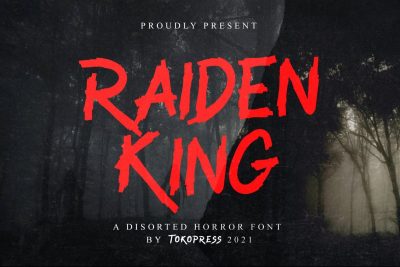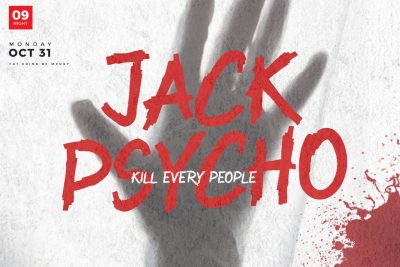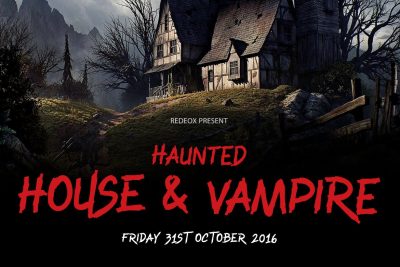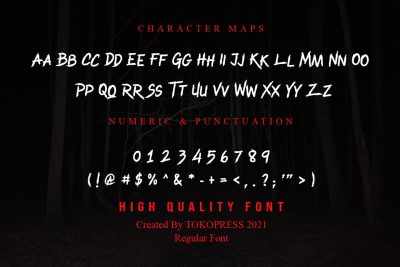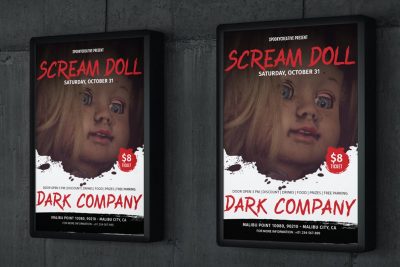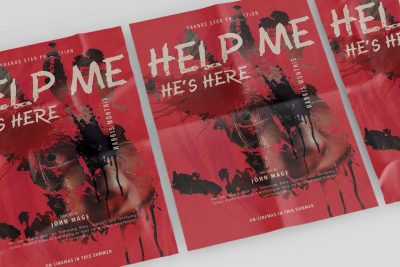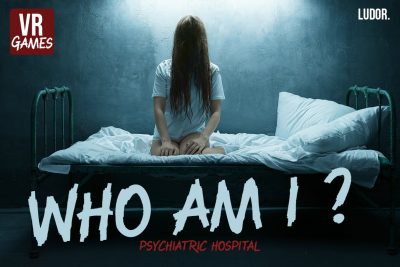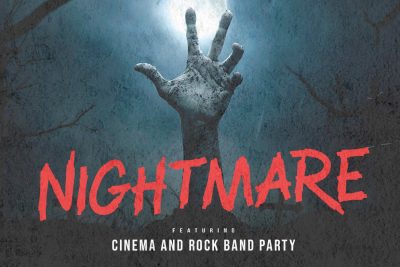
Scary Font Raiden King is the perfect typeface for creating intense and dramatic visuals. With its raw, jagged strokes and bold structure, it brings an atmosphere of chaos and suspense. Moreover, this distorted design feels as if it belongs on a thriller movie poster or a haunted forest theme. Itโs ideal for Halloween campaigns, horror book covers, or cinematic advertisements. Furthermore, the sharp, irregular lines give it an edgy, hand-drawn look that easily grabs attention.
Additionally, the font pairs beautifully with dark backgrounds or contrasting colors to enhance its spooky feel. Raiden King is highly versatile and works well for both digital and print media. For instance, itโs a great choice for gaming interfaces, social media graphics, and branding materials. As a result, its dramatic energy ensures your designs will not go unnoticed.
Why Scary Font Raiden King Fits Your Design Needs
Raiden King is more than just a scary fontโitโs a tool for crafting gripping, unforgettable designs. For example, its jagged edges and distorted shapes symbolize unpredictability, making it perfect for horror movie trailers or event posters. Consequently, this fontโs unique style helps your project stand out and deliver a thrilling message.
What sets Raiden King apart is its balance of artistic flair and readability. While the jagged shapes create a raw and chaotic feel, the letters remain legible across different sizes and formats. Moreover, its compatibility with major design software ensures an easy workflow for both professionals and casual creators. The hand-crafted imperfections give it an organic and eerie vibe, adding depth to your work.
Therefore, whether you are designing for Halloween, dark fantasy, or edgy branding, Raiden King elevates your visuals. Itโs truly a must-have for anyone seeking bold and impactful typography. By choosing Raiden King, you ensure your designs are both memorable and perfectly suited for any horror-inspired project.